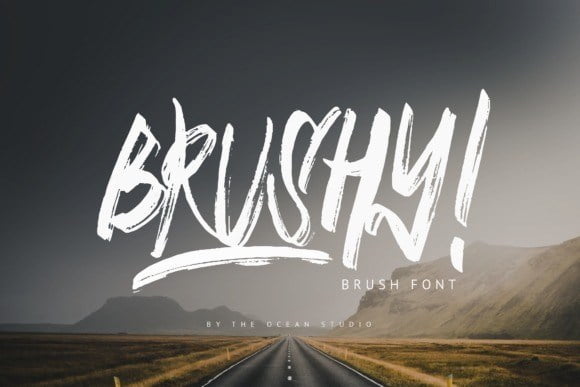
Brushy Brush Font
The Brushy is simply what it’s called – a rough brush. Handwritten Capitals from A – Z and 0 – 9 in three character sets, upper-, lowercase and an alternates set. On the whole this font gives you the possibility to make your design look very unique and handmade.
Brushy Font is awesome on shirts, posters and stickers, your stylish fashion blog or cookbook, and everything that needs a bold lettered message. It loves big headlines and gives its best in dynamic logos and also he speaks a well central european.